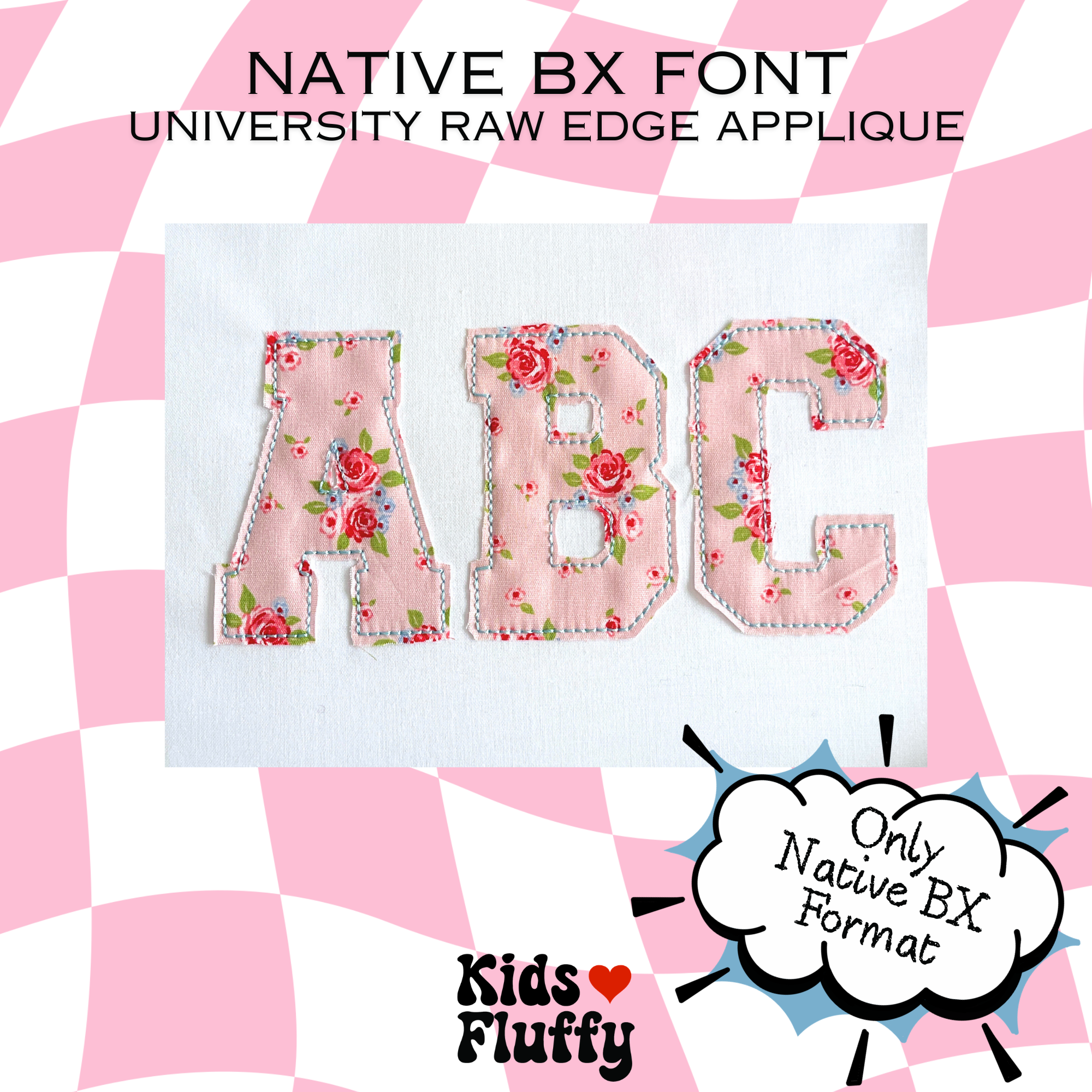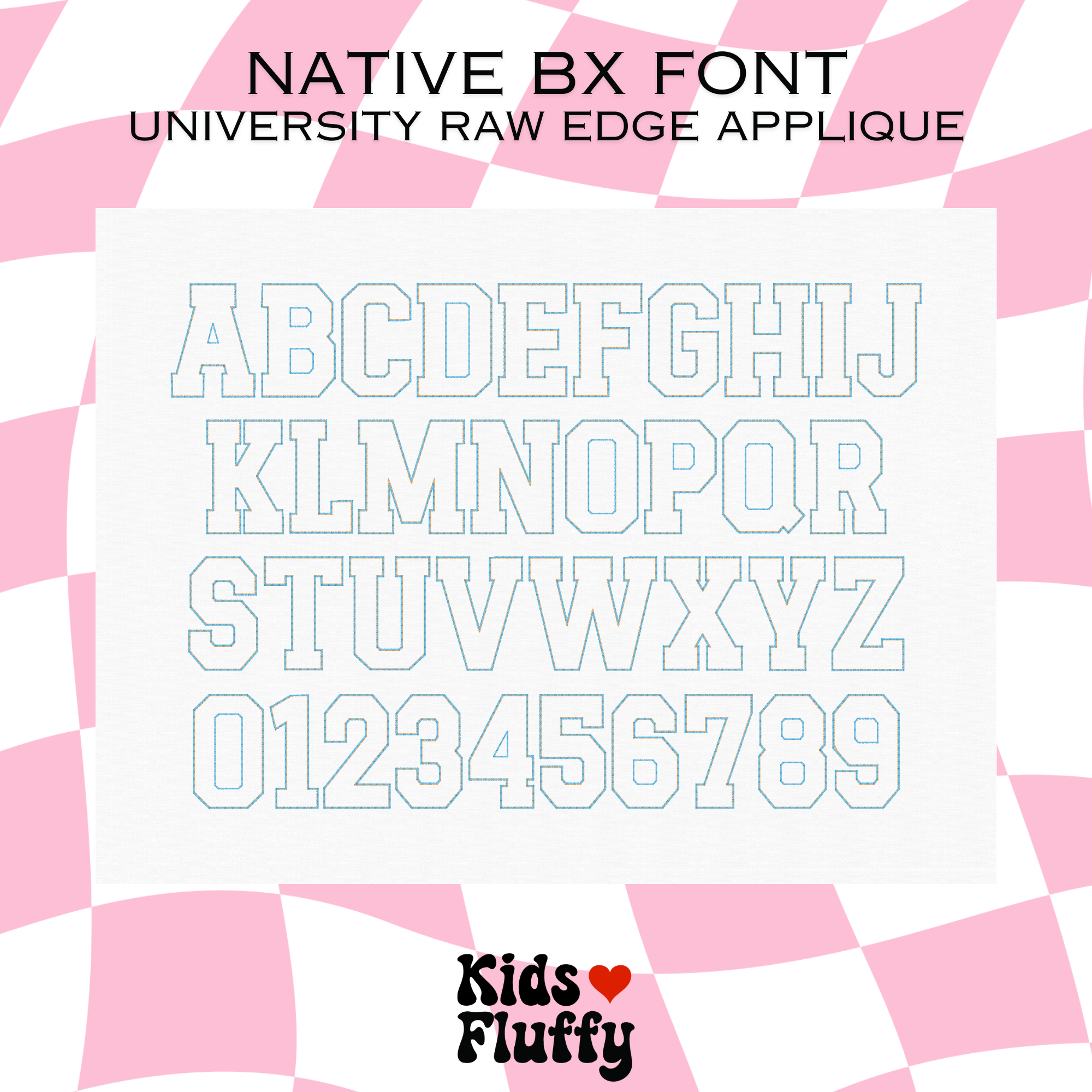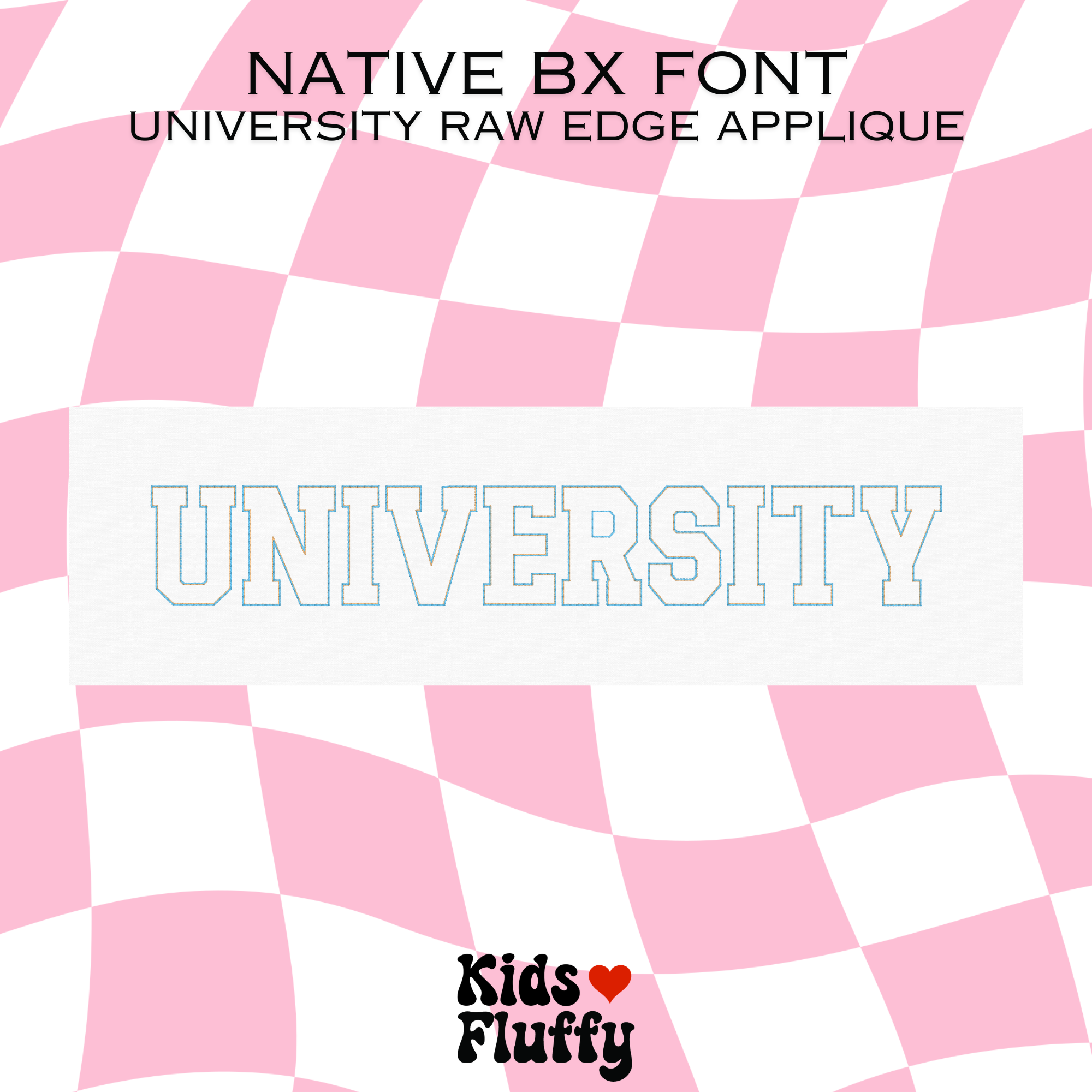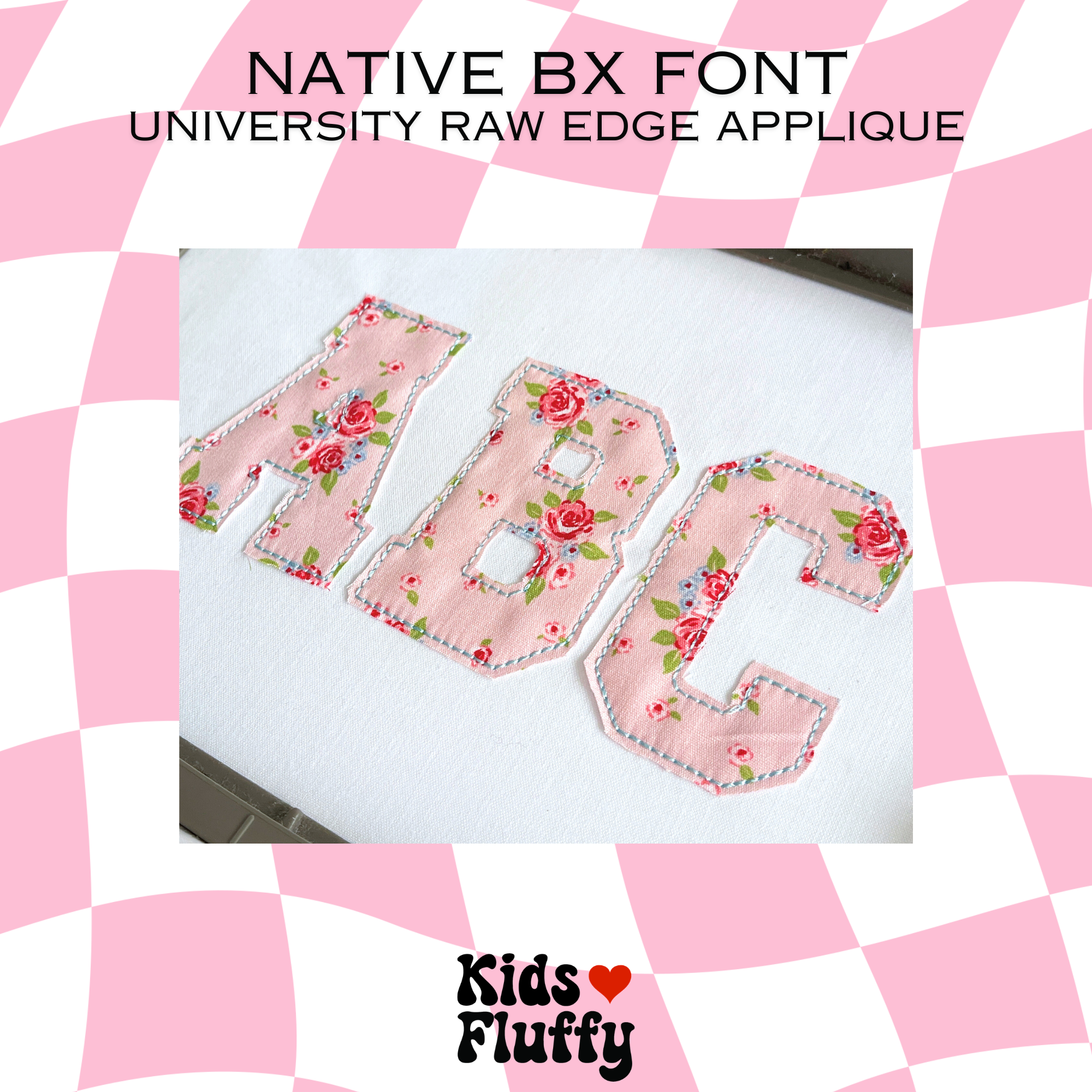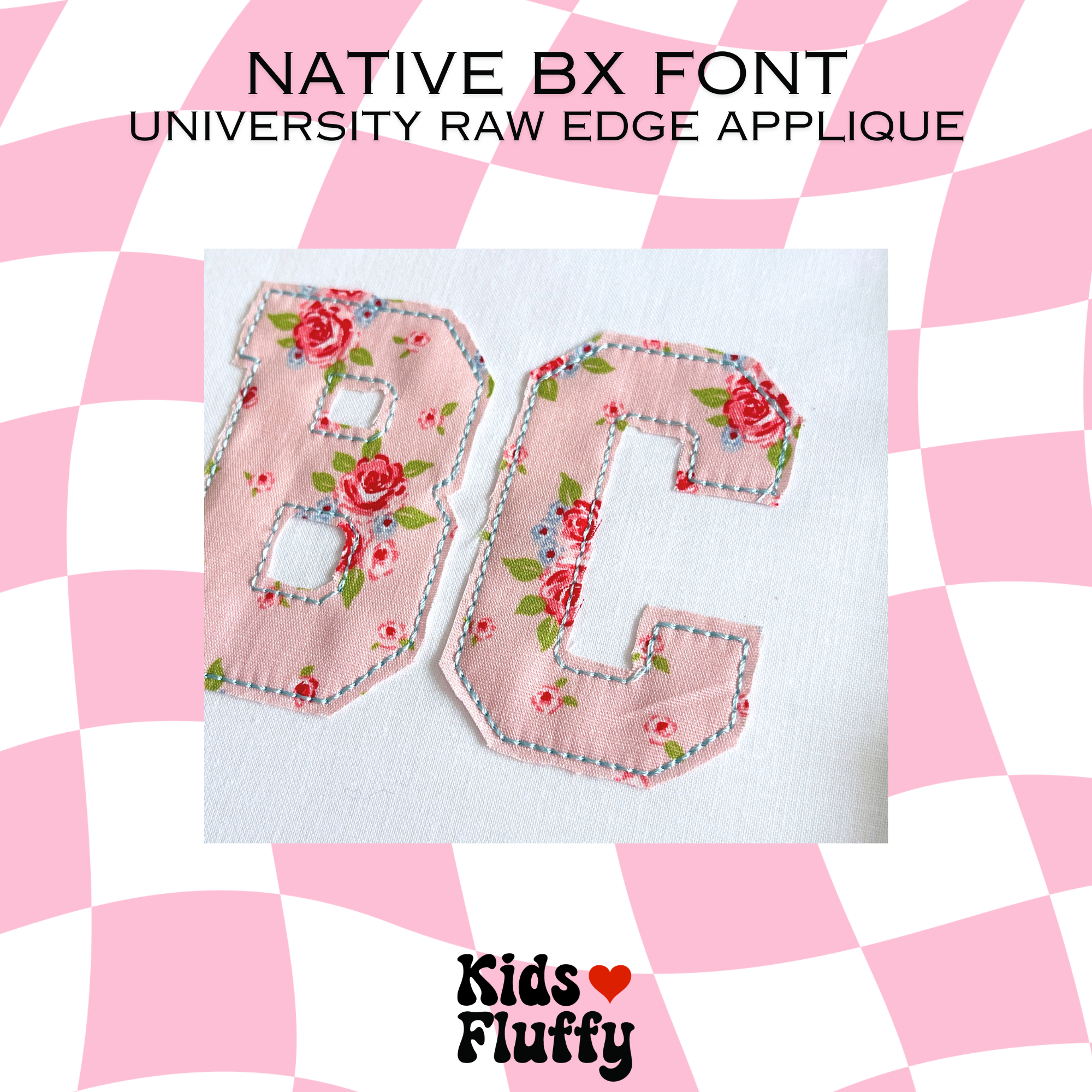
Native alphabet BX font University Raw Edge Applique. Double run stitch.
It’s just a file where you can enlarge and reduce the font between 30mm (minimum) and 150mm (maximum) – 1’11/64 to 5’57/64. (reference measurements)
This source has the possibility of converting into an object.
You can change the color of each letter and customize it however you like.